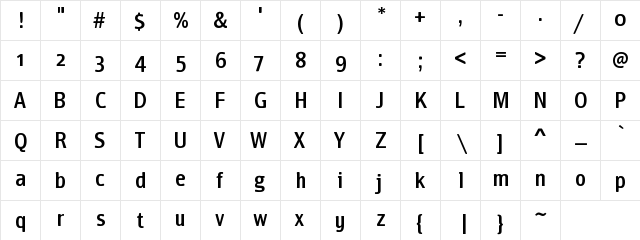
Vecta Regular
Design Context for Vecta Typeface
Vecta is a composed and adaptable typeface that performs quietly and consistently across a wide range of design contexts.
Pro Tip: Pair Vecta with a font of contrasting weight or personality to build a more expressive typographic hierarchy.